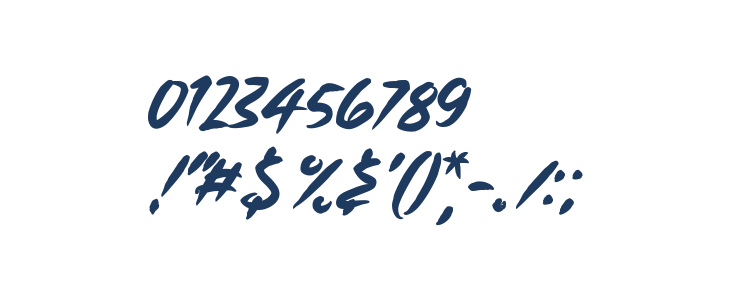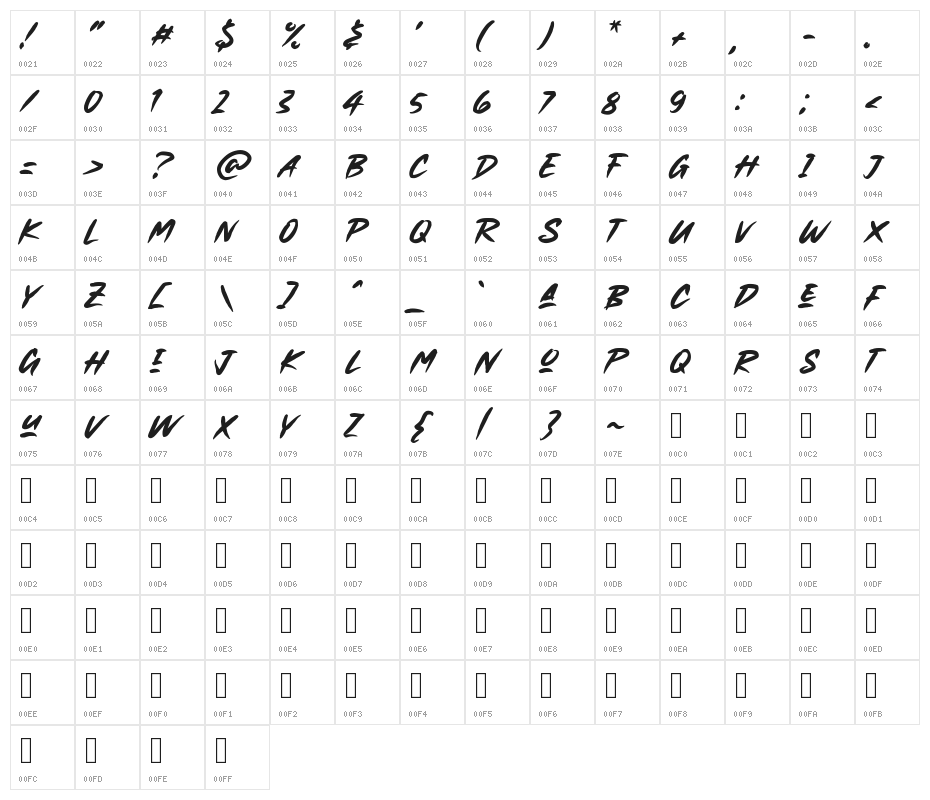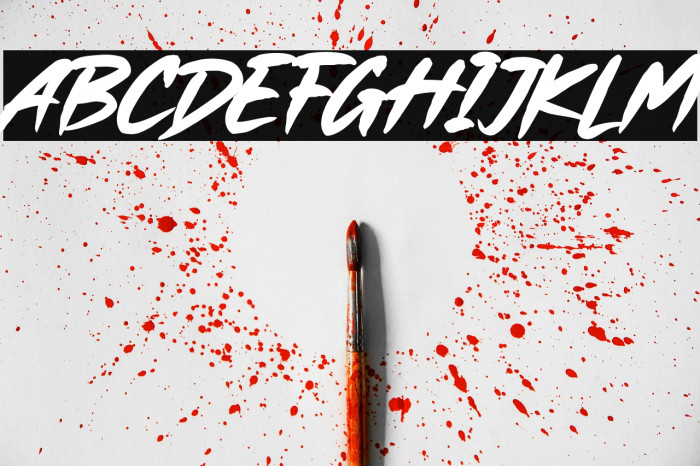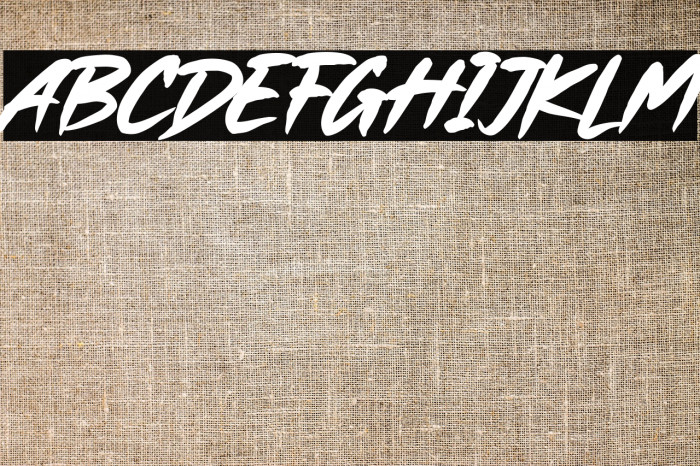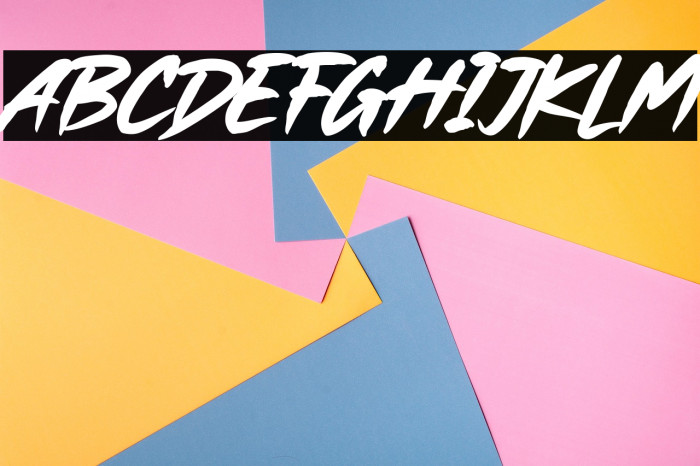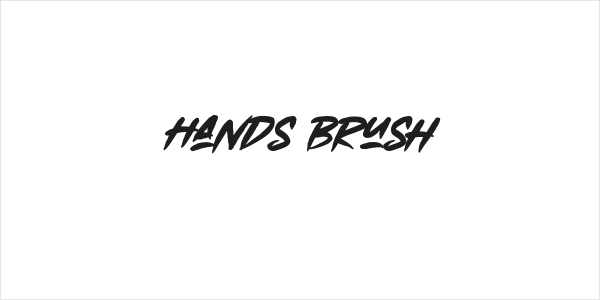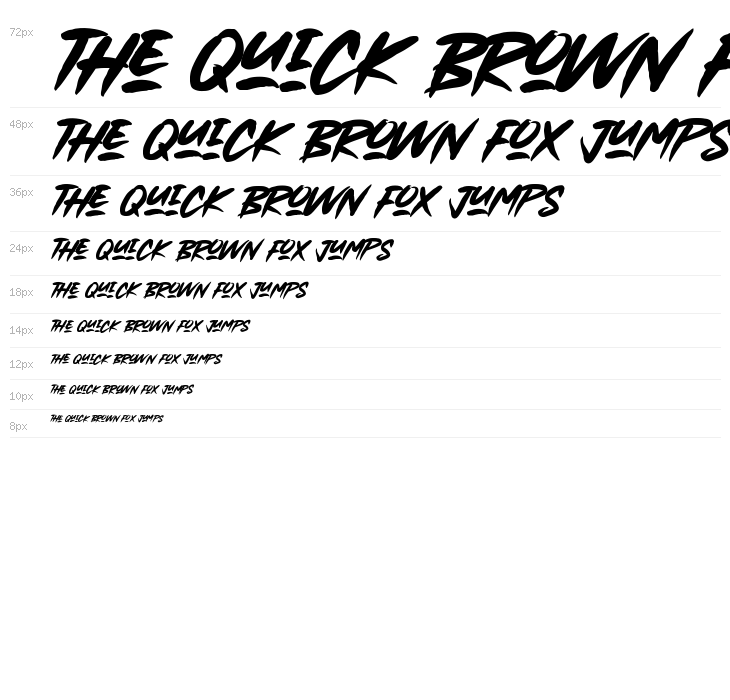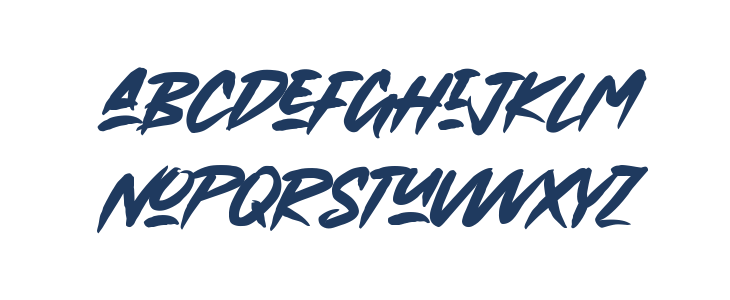
Hands Brush Font
Hands Brush Description
This font exudes a bold and dynamic brush script style, characterized by its energetic and flowing strokes. The letters are crafted with a sense of movement, giving them a lively and expressive appearance. The uppercase and lowercase letters maintain a consistent style, with a slight slant that adds to the font's casual and informal vibe. The numbers and special characters are equally bold, ensuring a cohesive look across all elements. This font's brush-like texture and thick strokes make it stand out, ideal for projects that require a strong visual impact.